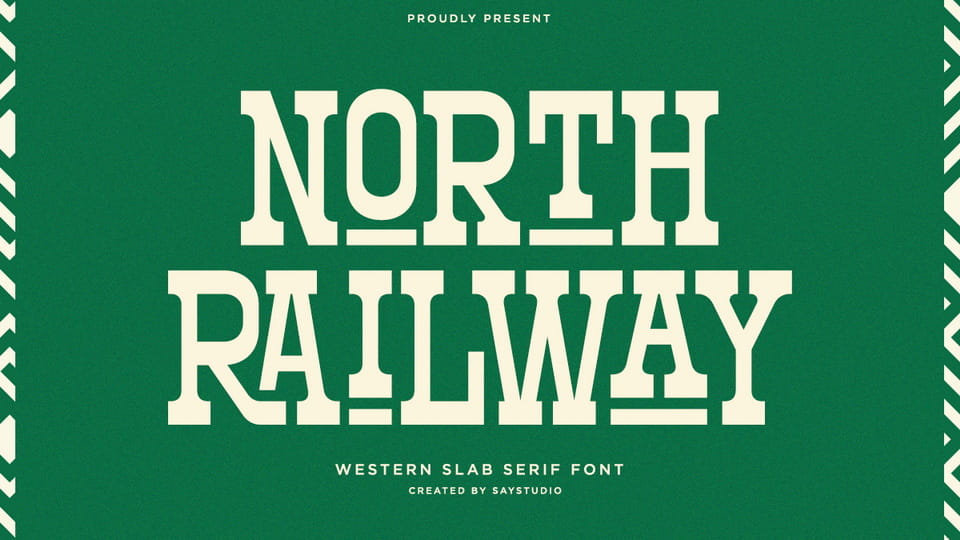
Download North Railway font, a slab serif typeface inspired by the vibes of the 80s and 90s. This font is ideal for anyone looking to create projects with a retro feel that’s not too vintage.
Designer: Saystudio